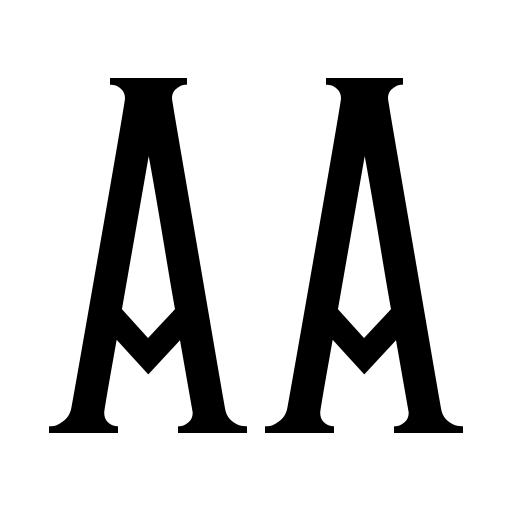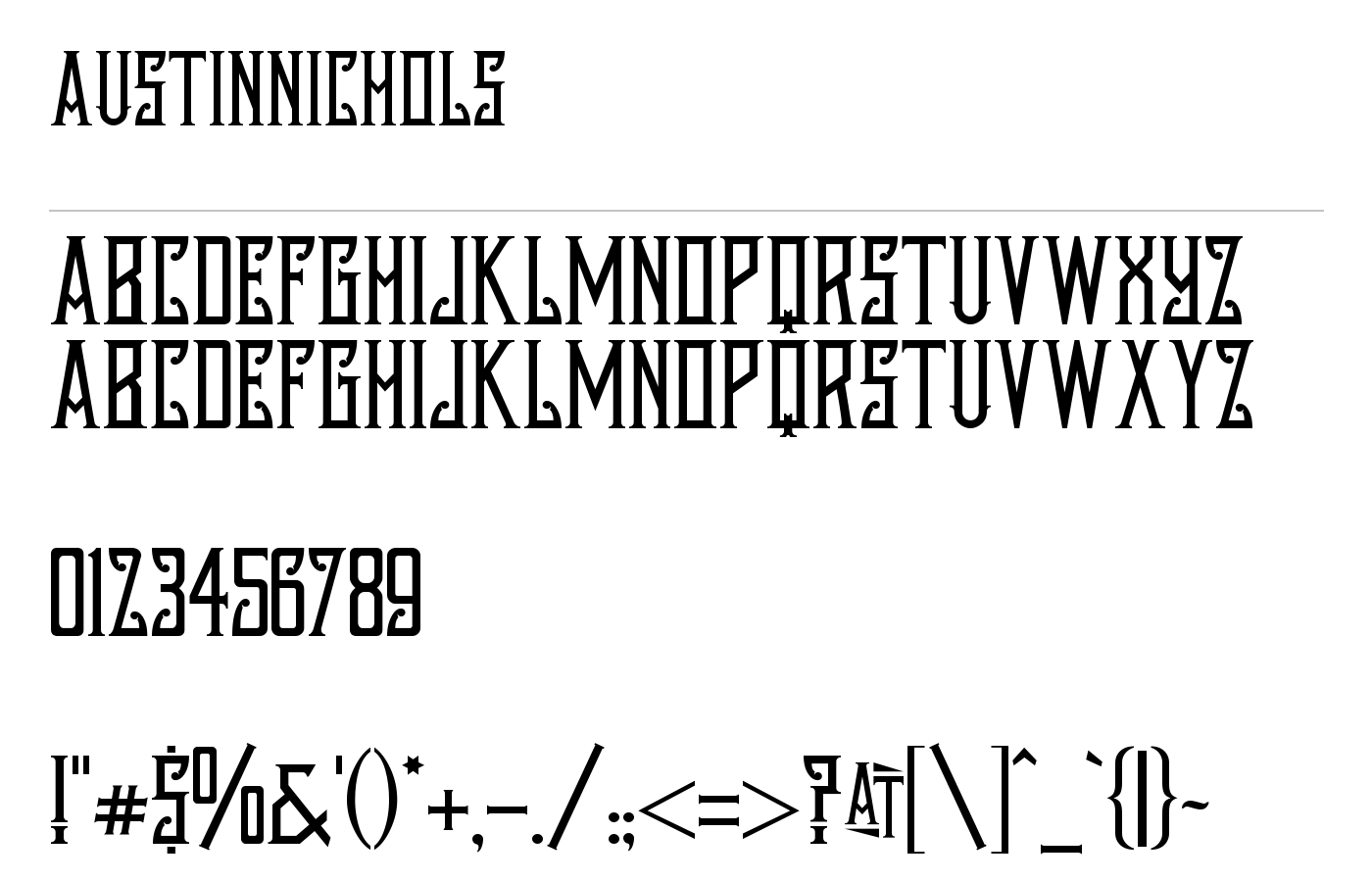
AustinNichols is a bold, condensed serif font with a unique blend of vintage and decorative elements, featuring high contrast strokes and stylized, bracketed serifs with dramatic flourishes. Its tall, narrow letterforms with quirky details evoke a sophisticated yet playful character, making it ideal for vintage-inspired branding, posters, and striking headlines where personality and impact are key. This font works best where distinctive style is desired, adding an elegant and artistic flair that stands out.
AustinNichols Font
About AustinNichols Font